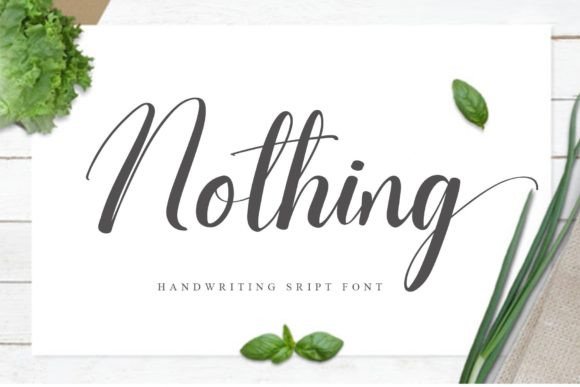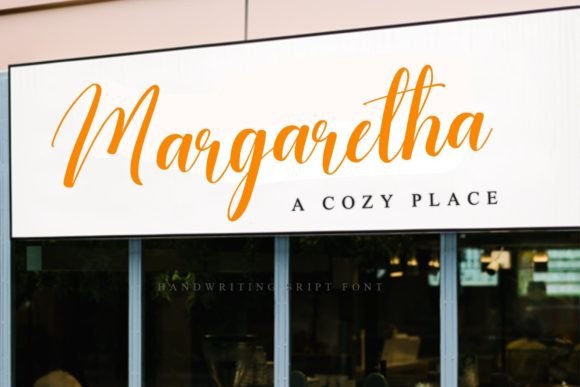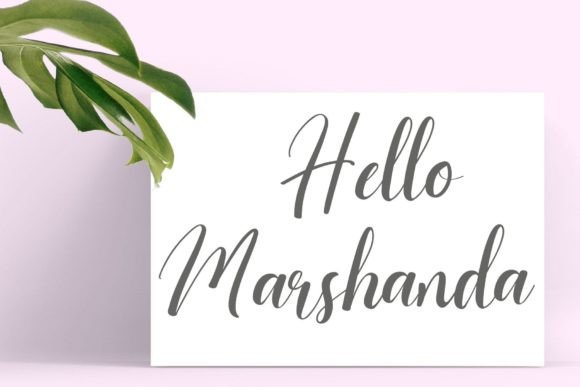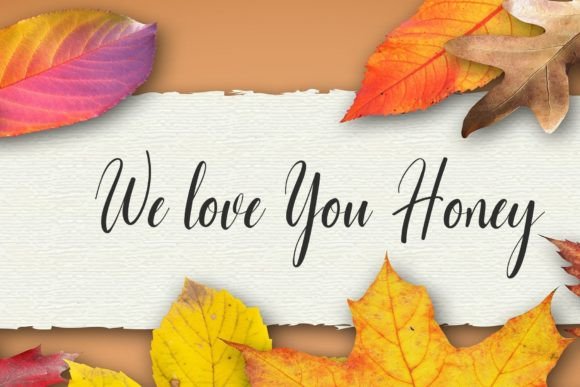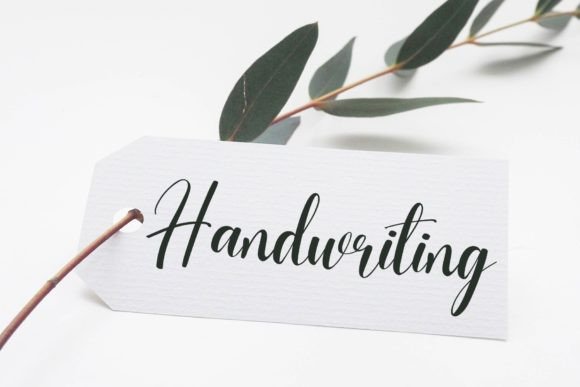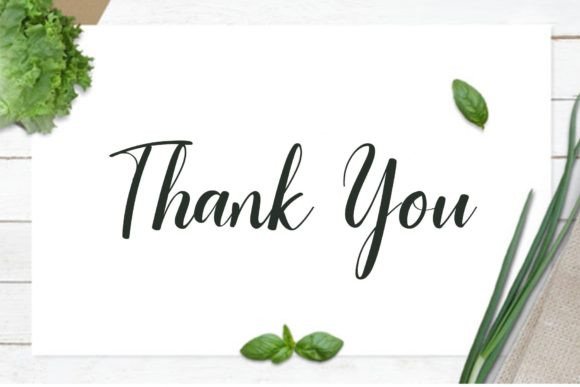
Nothing Font
About Nothing Font
“Nothing” is not just a font; it’s an elegant handwritten typeface that exudes beauty through carefully crafted characters. This font brings a touch of classic decorative script with a modern flair, showcasing a high level of detail to present a truly elegant style.
The character change in “Nothing” adds a unique and beautiful aspect, making it stand out in the realm of handwritten fonts. This attention to detail contributes to the overall elegance of the typeface, making it suitable for a wide range of design purposes.
Imagine “Nothing” gracing your projects, from sophisticated invitations to branding materials seeking a touch of timeless charm. The classic decorative script, infused with a modern touch, allows this font to seamlessly adapt to diverse design contexts.
For logos, packaging, or any design that requires an elegant and refined aesthetic, “Nothing” becomes a valuable asset. Its meticulous design reflects a commitment to craftsmanship, making it a choice that elevates the visual appeal of your creations.
In essence, “Nothing” is more than just a font; it’s a design element that adds an elegant and modern touch to your projects. Whether you’re working on invitations, branding, or other creative endeavors, let “Nothing” be the script that enhances the sophistication and beauty of your designs.